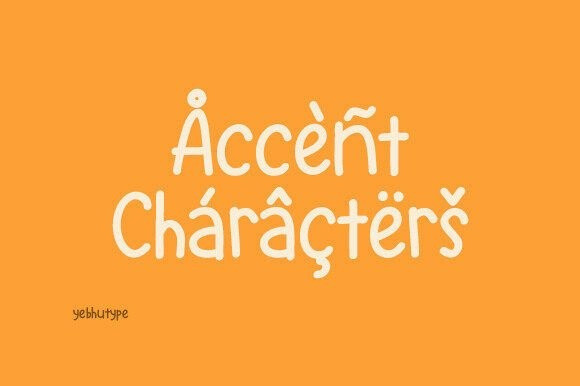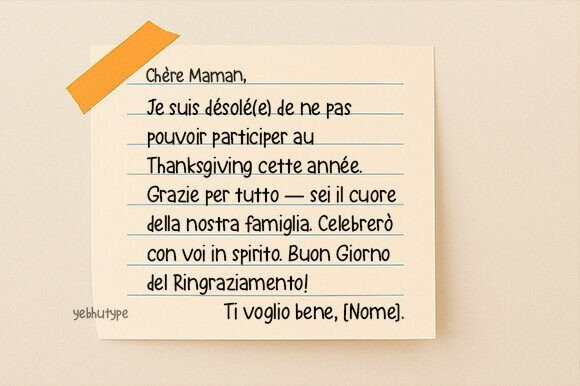
Best Notes Font
Best Notes Font, a cheerful handwritten typeface designed to bring warmth, clarity, and personality into every word. With its rounded letterforms and playful rhythm, Best Notees captures the spirit of handwriting—natural, approachable, and full of heart.
More than just a font, Best Notes is your creative companion. It makes any message feel personal, sincere, and fun—whether you’re creating educational content, crafting DIY projects, or branding something uniquely yours.
The Essence of Best Notes Font
Best Notes is inspired by everyday handwriting that’s neat, casual, and effortlessly expressive. It embraces slight imperfections and soft curves to create a human, relatable tone in your designs. With a clean yet playful structure, this font invites viewers in and leaves a lasting impression.